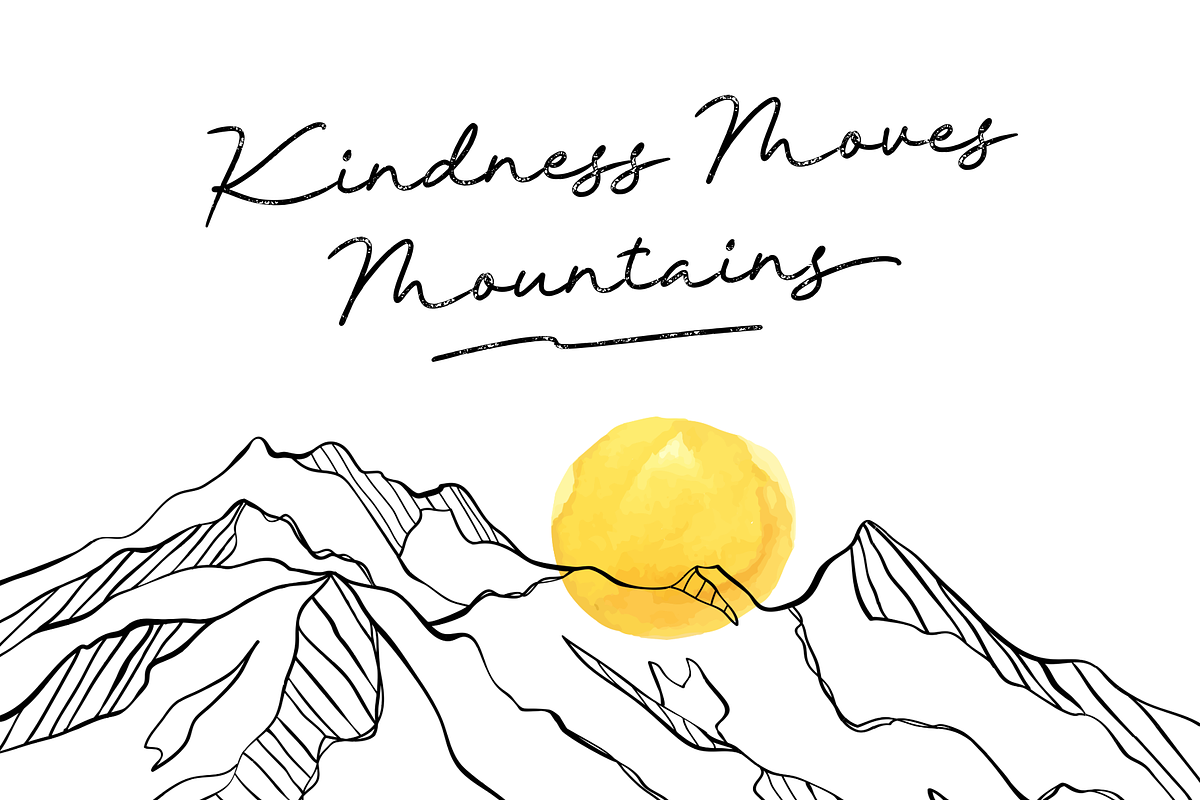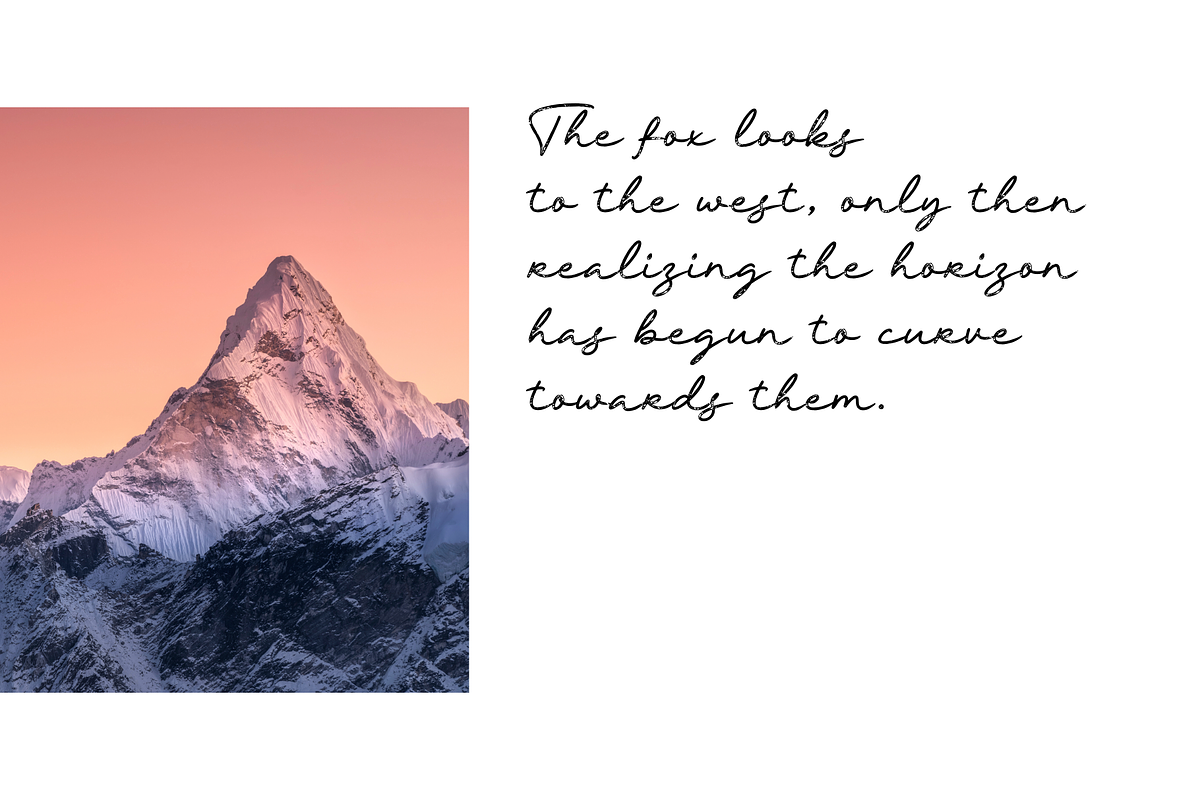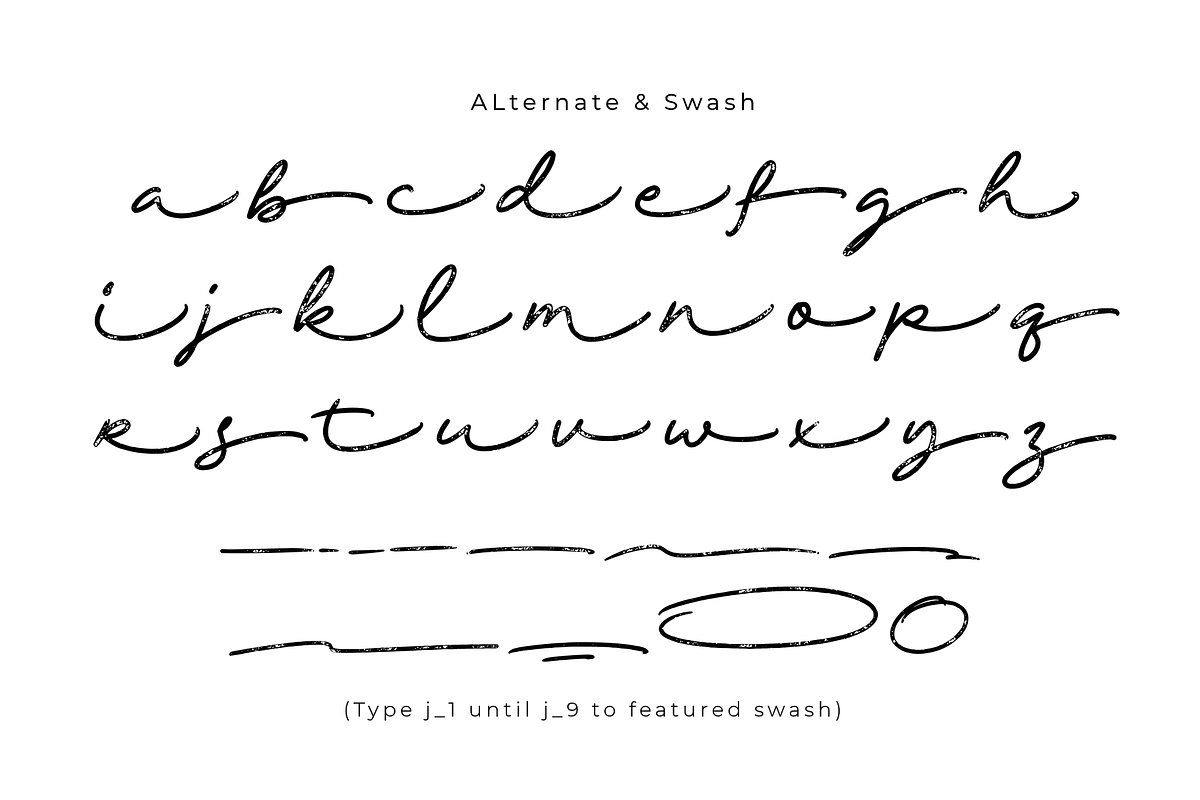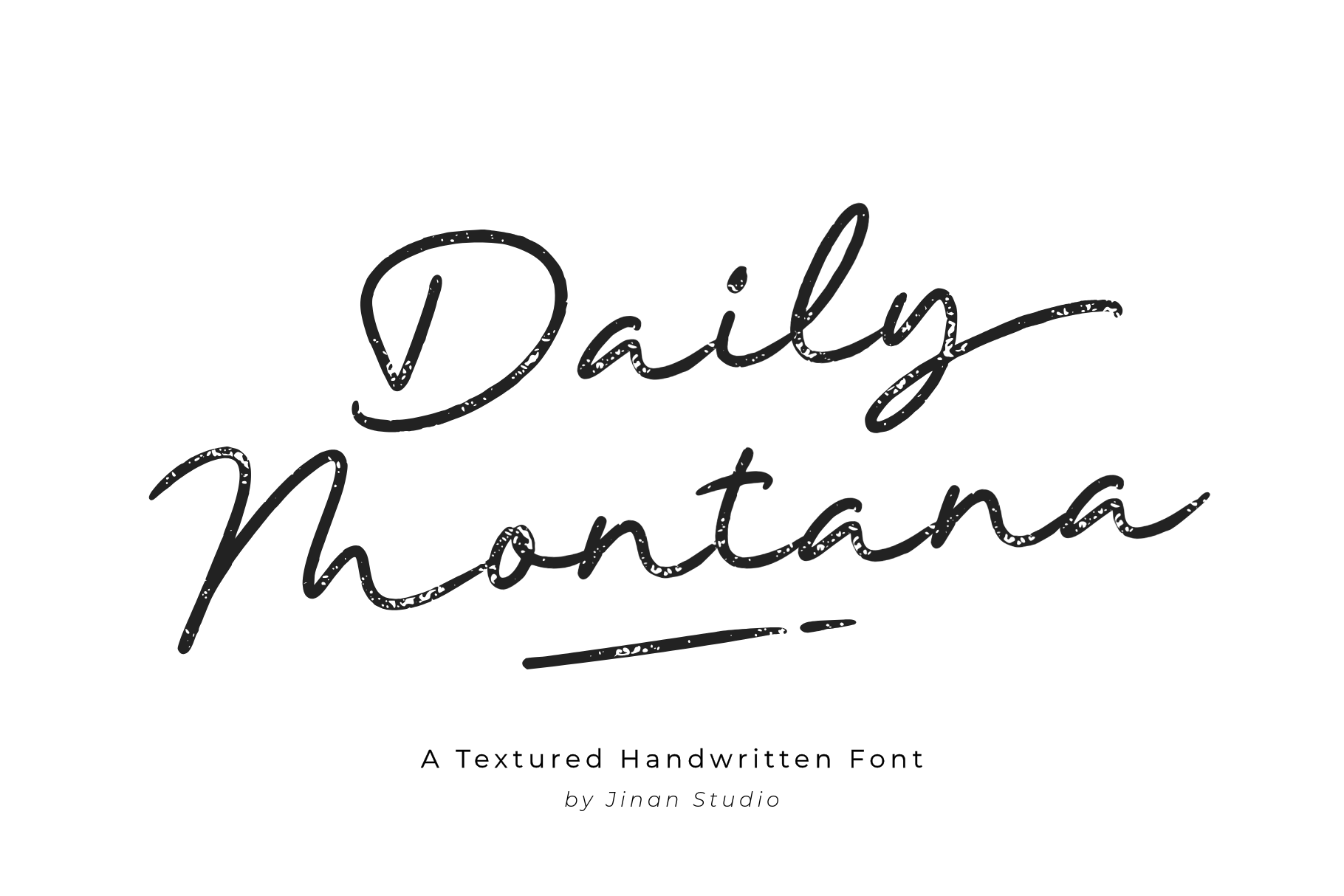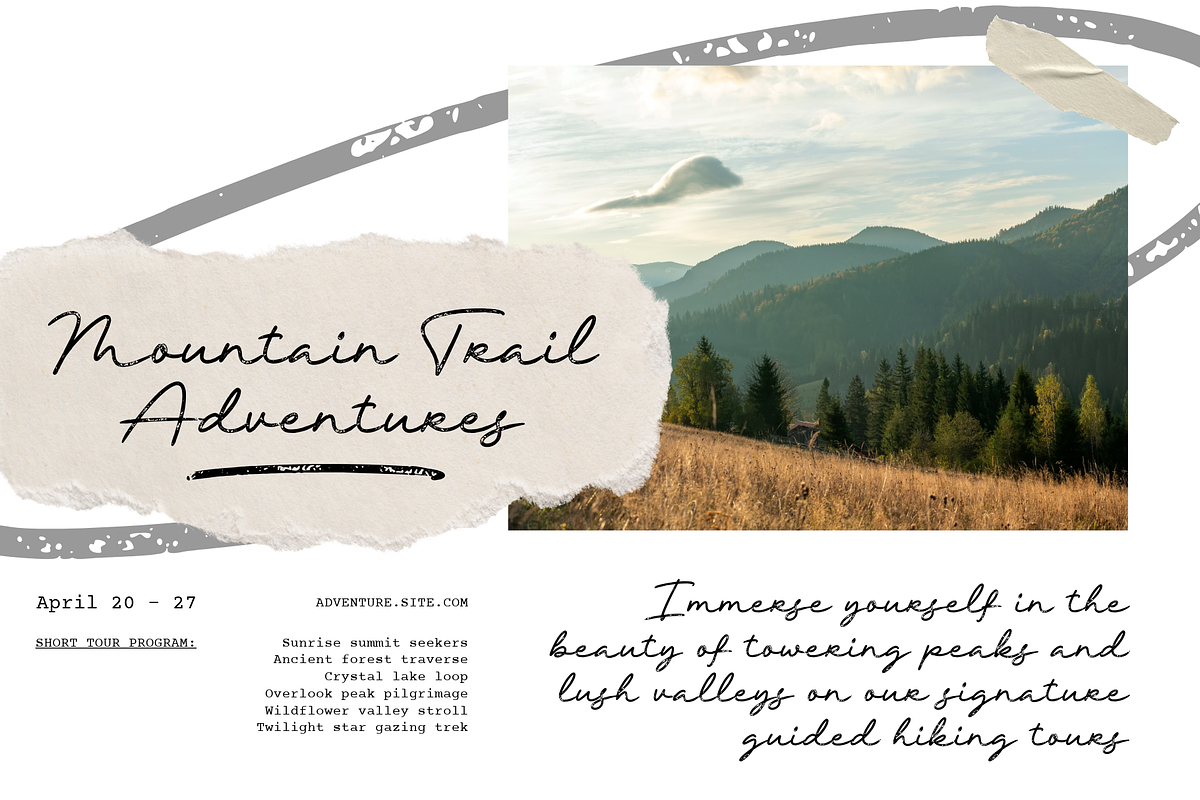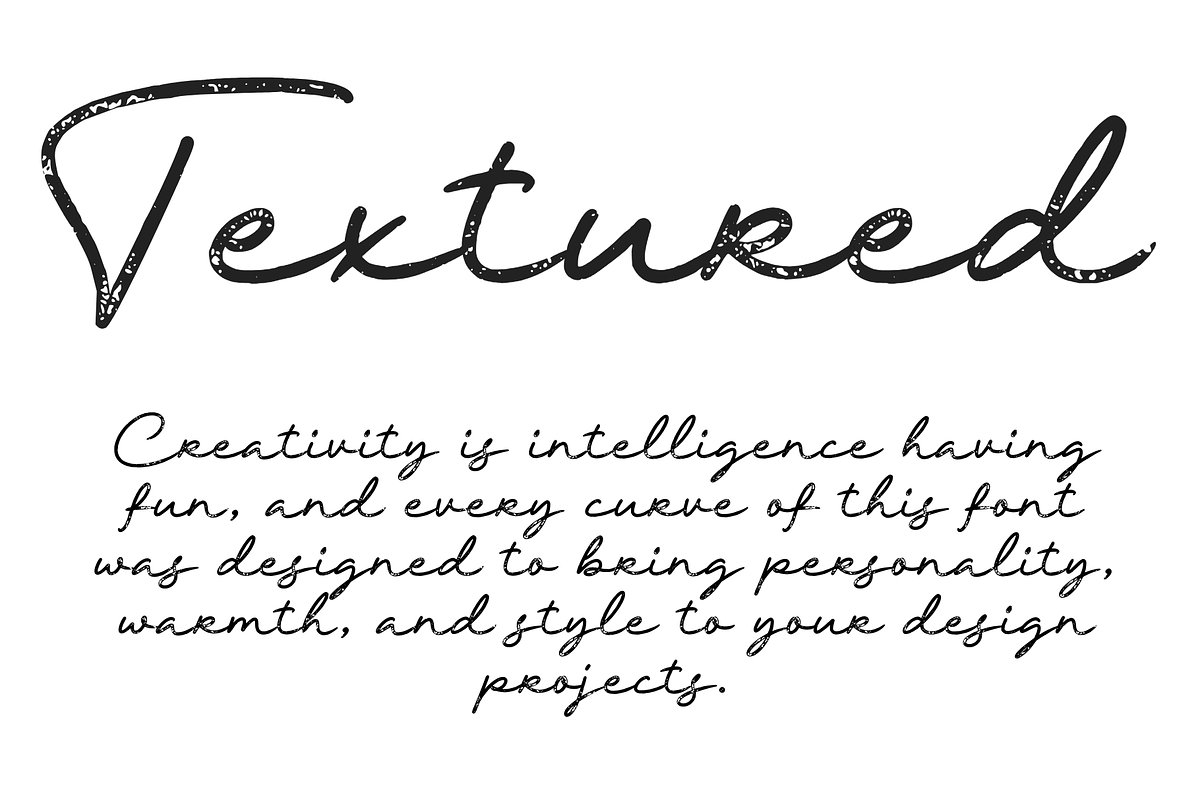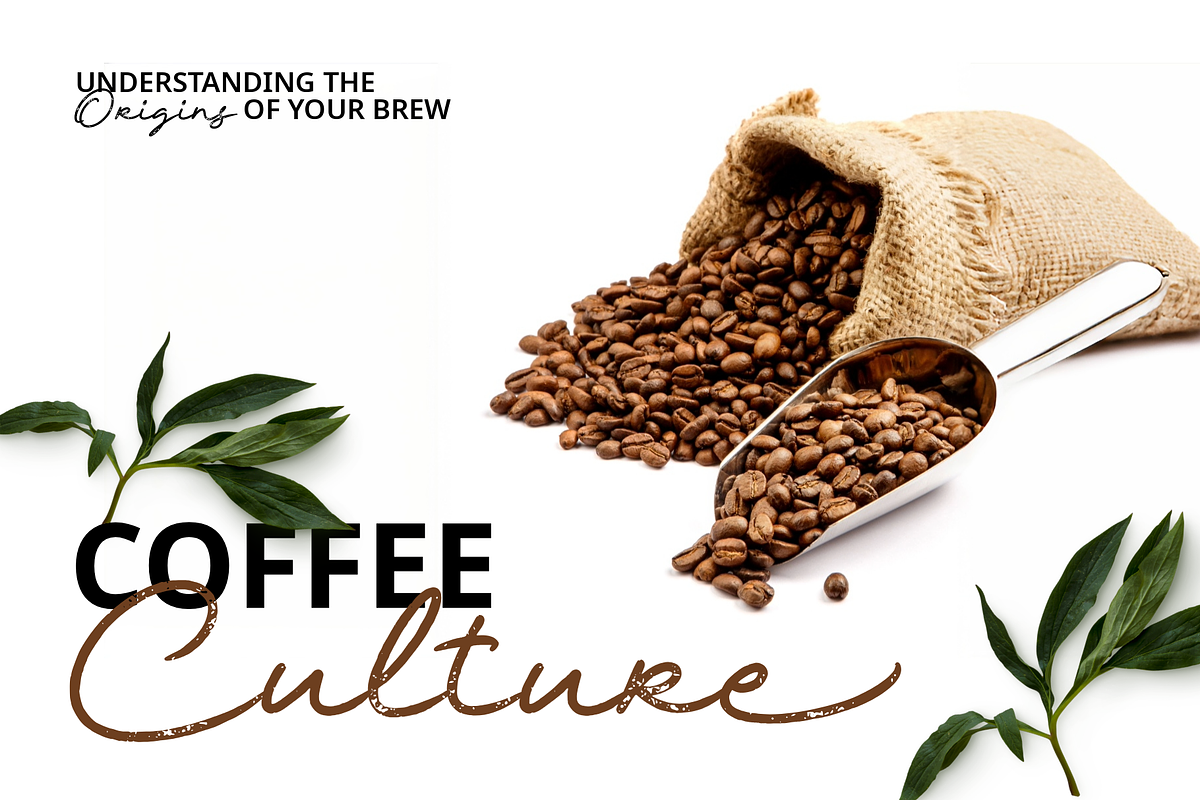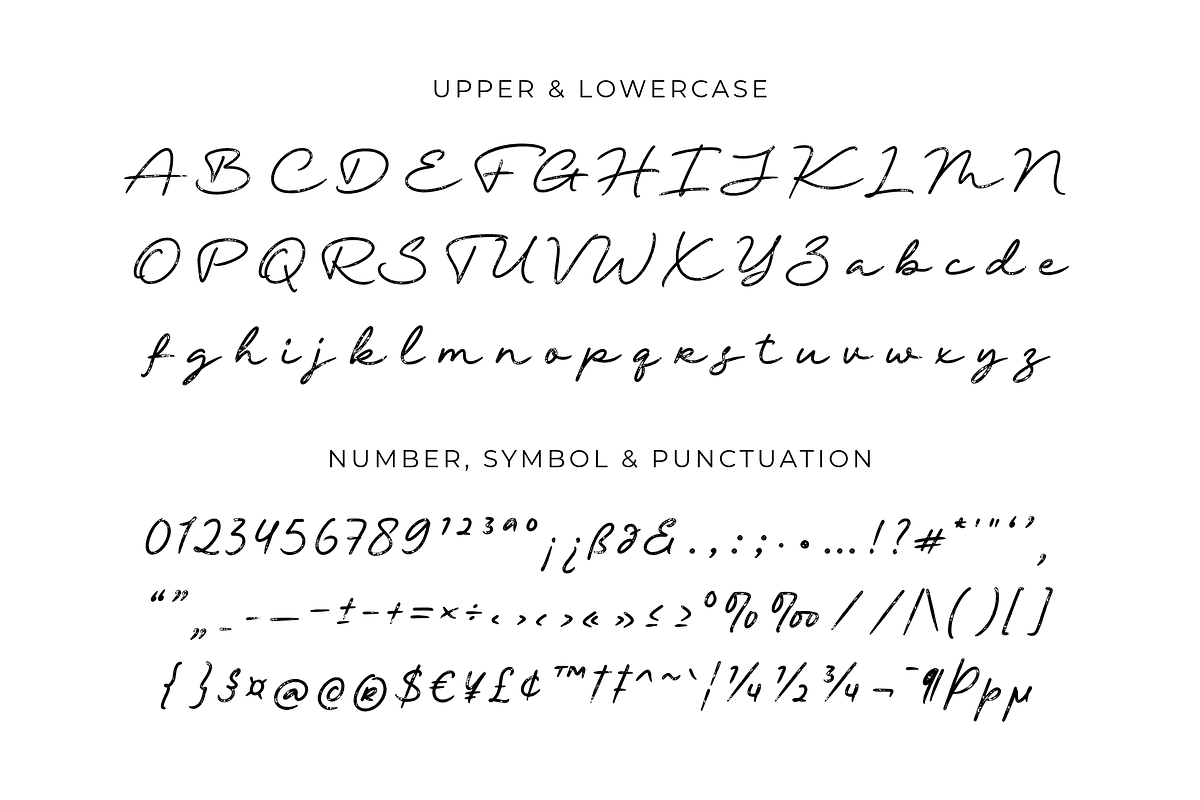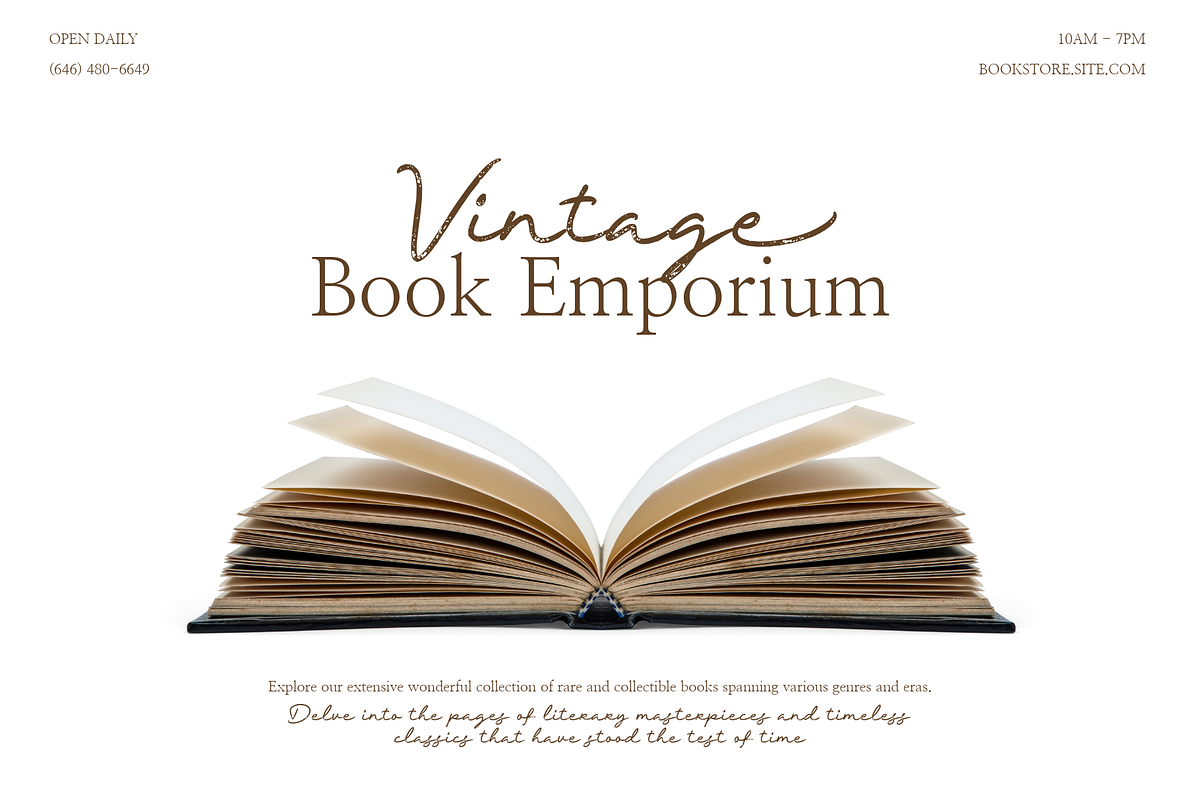
Daily Montana - A Handwritten Font
Introducing Daily Montana: a textured, hand-sketched font brimming with vintage allure and a touch of wanderlust inspiration. The wild, naturally drawn strokes coalesce with its coarse complexion embracing an authentic, organic essence. It flawlessly infuses warmth and individuality into any project, making it the prime choice for branding, chic poster designs, journey-focused motifs, sophisticated packaging, or captivating social media visuals. Undoubtedly versatile, Daily Montana seamlessly transitions from fine-tuning travel emblems to curating nostalgic passages. Adding to your project a robust, fashionable flair that is sure to make a stunning statement. Immerse your audience in the compelling charm of Daily Montana.
- A set of uppercase and lowercase glyphs
- Number, symbol, and punctuation
- Alternates, and swashes
Type j_1 until j_9 to features swash.